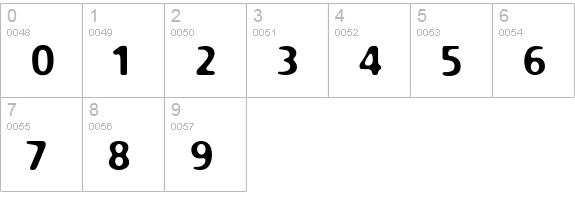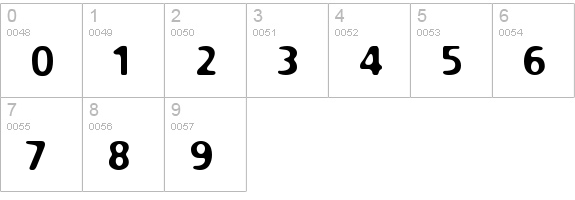
PFPlazm Bold is a strong, high-contrast variant in the PFPlazm typeface family \xE2\x80\x94 well suited to headlines, attention-grabbing titles, and strong calls-to-action.
Introducing PFPlazm Bold font - a dynamic and modern typeface that exudes confidence and strength. This bold and impactful font is perfect for making a statement in your designs, whether it's for headlines, logos, posters, or branding materials. With its clean lines and sharp edges, PFPlazm Bold commands attention and leaves a lasting impression. But the best part? PFPlazm Bold font is available for free download at FontsMarket.com. Yes, you read that right - you can get your hands on this powerful font at no cost at all. So why wait? Elevate your design projects with PFPlazm Bold and unleash your creativity today!